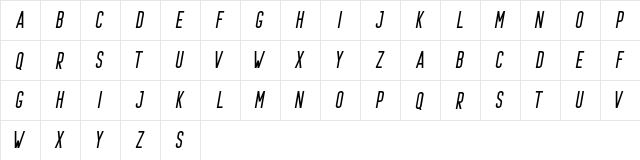
Prestage Italic Italic
Design Context for Prestage Italic Typeface
Prestage Italic offers clean, dependable letterforms without strong stylistic allegiance, making it a practical choice for designers who need flexibility. The slanted form adds forward momentum and visual energy.
Pro Tip: Use Prestage Italic for emphasis, pull quotes, and subheadings where its slanted energy can add rhythm to the layout.